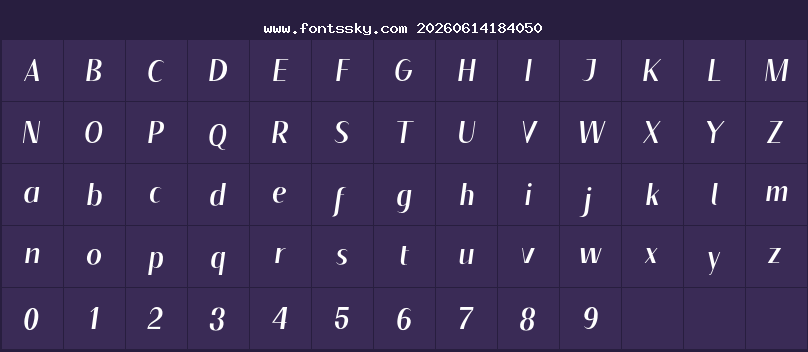
Floane Preview
• Font Name: Floane
• Font ID: 1.000;UKWN;Floane-RegularItalic
• Full Font Name: Floane Regular Italic
• PostScript Name: Floane-RegularItalic
• Designer: Daler Mukhiddinov
• Manufacturer: Daler Mukhiddinov
About Floane.otf
Floane.otf is a modern, elegant sans-serif font designed for ultimate readability and visual harmony. Perfect for branding, headlines, web design, and print materials.